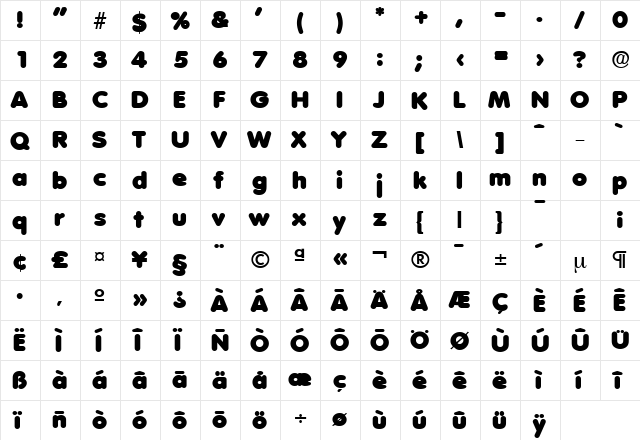
Volkswagen-Serial-Black Regular
Design Context for Volkswagen-Serial-Black Typeface
Volkswagen-Serial-Black is a composed and adaptable typeface that performs quietly and consistently across a wide range of design contexts.